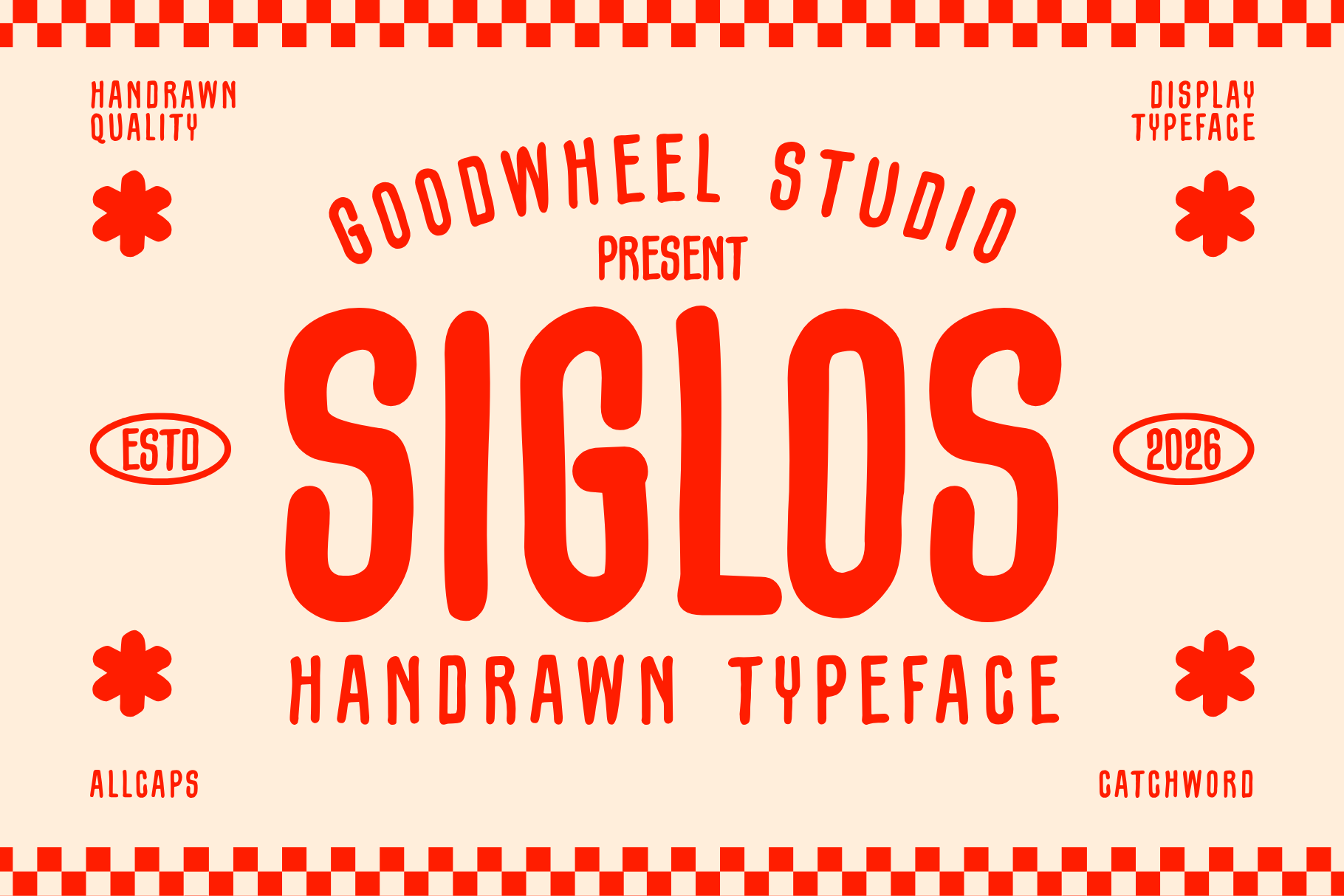
Siglos | Handdrawn Typeface
Siglos is a handcrafted display font featuring tall, condensed letterforms with a warm, organic personality. Designed to make bold statements, it blends a playful handmade aesthetic with clean readability, making it perfect for branding, packaging, logos, posters, headlines, merchandise, social media, and editorial projects. Its distinctive all-caps style delivers a charming vintage-meets-modern look that stands out across both print and digital designs. Siglos includes uppercase letters, numbers, punctuation, multilingual support, and essential symbols, providing versatility for creative professionals. Whether you're crafting artisan brands or eye-catching marketing materials, Siglos adds authentic character and timeless appeal to every design project.